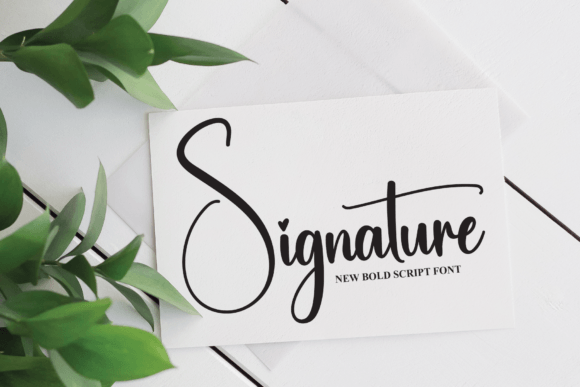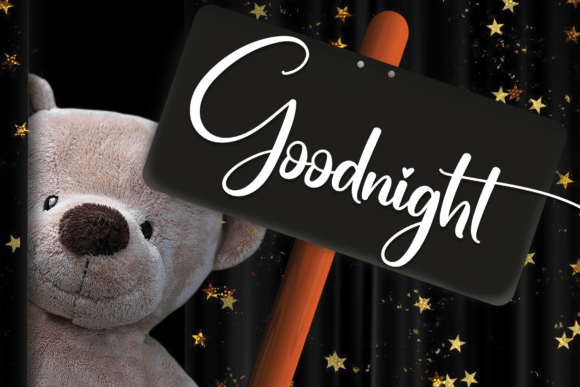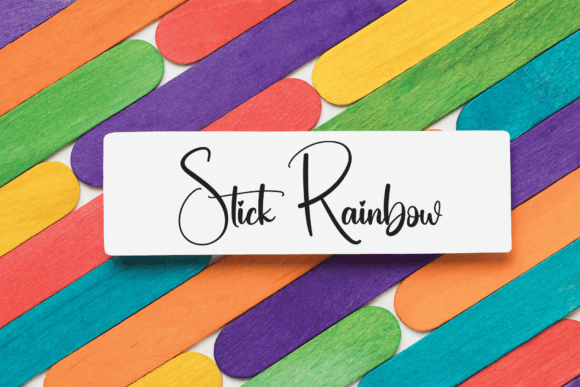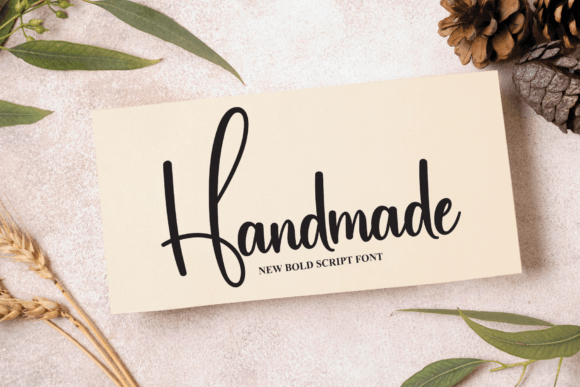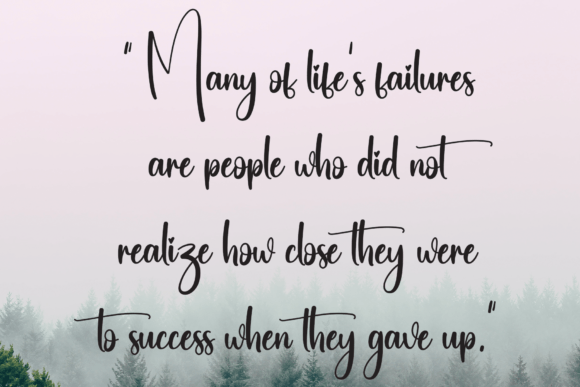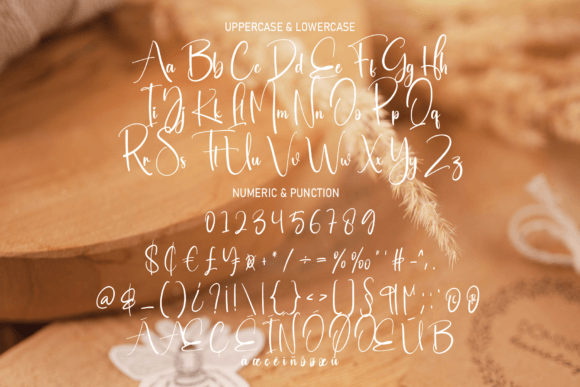
Introducing Handiwork Font: Elevate Your Designs with Elegance and Sophistication
Are you tired of using the same old fonts in your designs? Look no further than Handiwork, an exquisite handwritten font that is sure to become your new favorite. With its classy calligraphic influences and contemporary feel, Handiwork is the perfect choice for designers and crafters looking to add a touch of elegance and sophistication to their projects.
The Story Behind Handiwork Font
Handiwork font is a masterfully designed typeface that combines traditional calligraphy with modern sensibilities. The result is a font that feels both timeless and fresh, making it perfect for a wide range of design applications. Whether you’re working on a wedding invitation, a branding project, or a craft tutorial, Handiwork font is sure to impress.
What Makes Handiwork Font So Special?
So, what sets Handiwork font apart from other fonts on the market? Here are just a few of its standout features:
- Classy Calligraphic Influences: Handiwork font boasts beautiful, flowing script strokes that evoke the elegance of traditional calligraphy.
- Contemporary Feel: Despite its classic influences, Handiwork font feels modern and fresh, making it perfect for designers who want to create something new and exciting.
- Versatility: Handiwork font can be used for a wide range of design applications, from formal events to everyday crafts.
- Easy to Read: With its clear, flowing script, Handiwork font is easy to read, even at small sizes.
How to Use Handiwork Font in Your Designs
Ready to fall in love with Handiwork font? Here are a few ideas for incorporating it into your designs:
- Wedding Invitations: Use Handiwork font to create beautiful, formal wedding invitations that set the tone for a special day.
- Branding Projects: Add a touch of elegance and sophistication to your branding projects with Handiwork font.
- Craft Tutorials: Use Handiwork font to create eye-catching craft tutorials that showcase your handmade creations.
- Social Media Graphics: Add a personal touch to your social media graphics with Handiwork font.
Tips for Getting the Most Out of Handiwork Font
To get the most out of Handiwork font, here are a few tips to keep in mind:
- Experiment with Pairings: Try pairing Handiwork font with other fonts to create interesting and unique combinations.
- Play with Size and Color: Experiment with different sizes and colors to add visual interest to your designs.
- Use it Sparingly: While Handiwork font is beautiful, it can be overwhelming if overused. Use it sparingly to create a sense of elegance and sophistication.
In conclusion, Handiwork font is a true gem that is sure to become a favorite among designers and crafters. With its classy calligraphic influences, contemporary feel, and versatility, it’s the perfect choice for anyone looking to add a touch of elegance and sophistication to their designs. So why wait? Fall in love with Handiwork font and bring your projects to the highest levels!
Whether you’re a seasoned designer or a crafty DIY enthusiast, Handiwork font is sure to inspire. So go ahead, give it a try, and see the difference it can make in your designs!